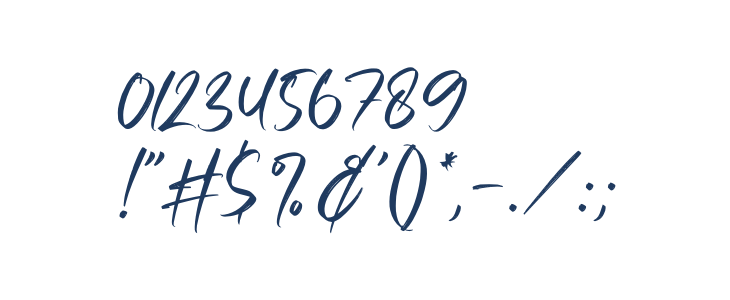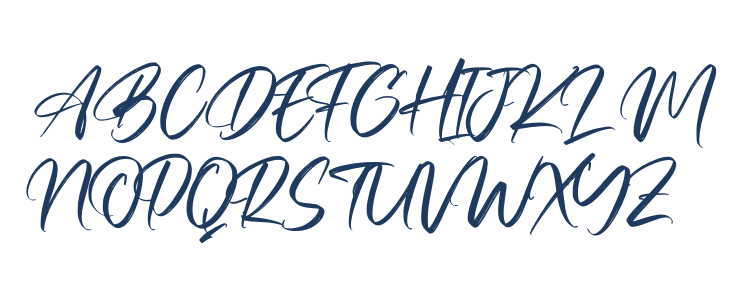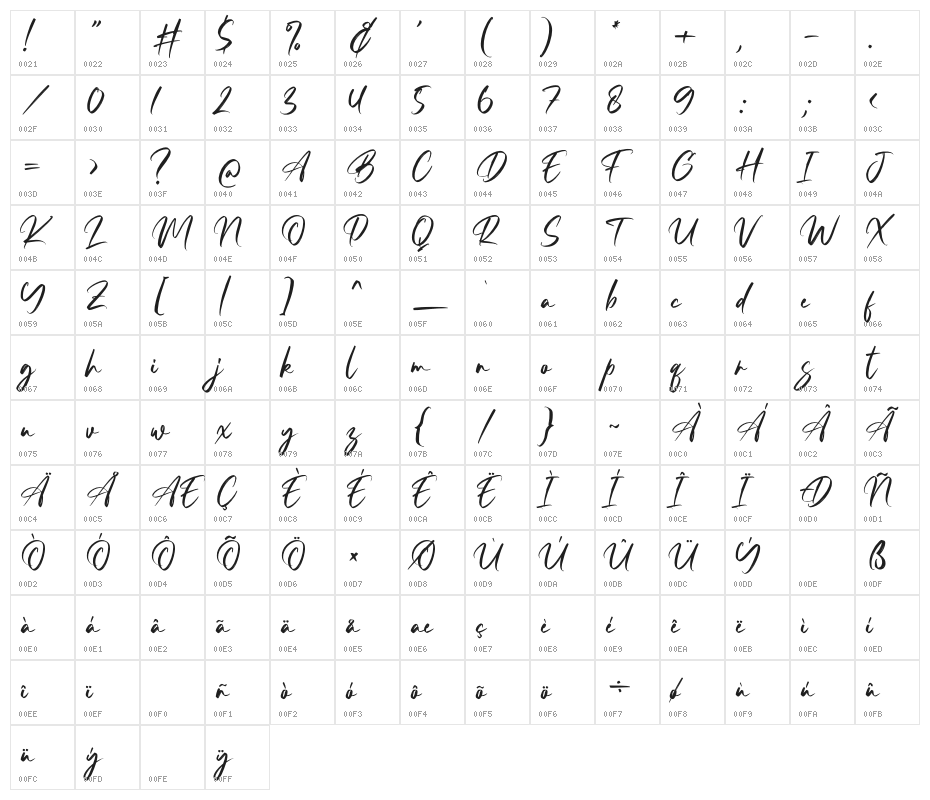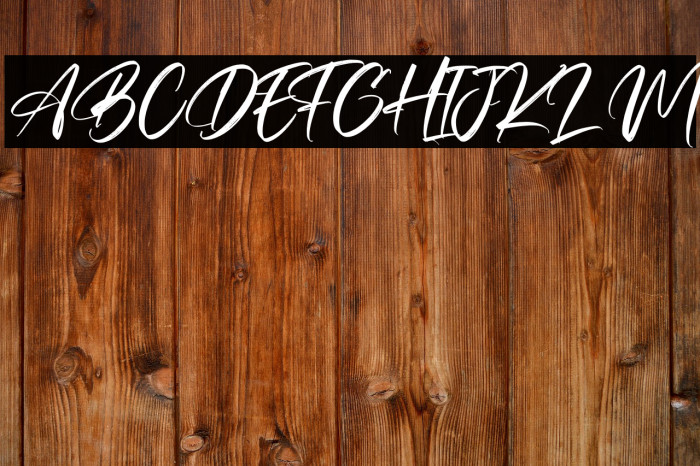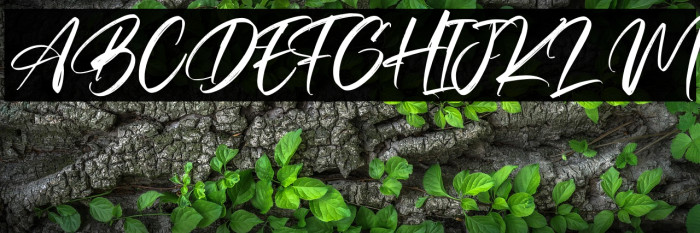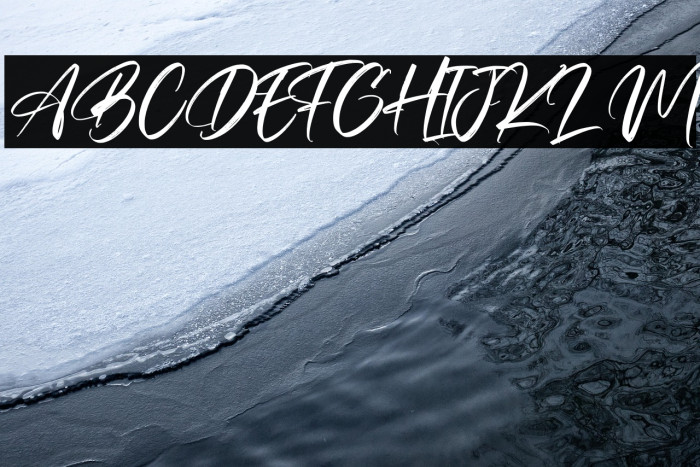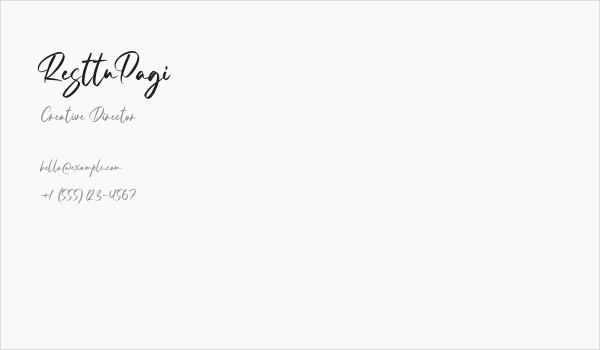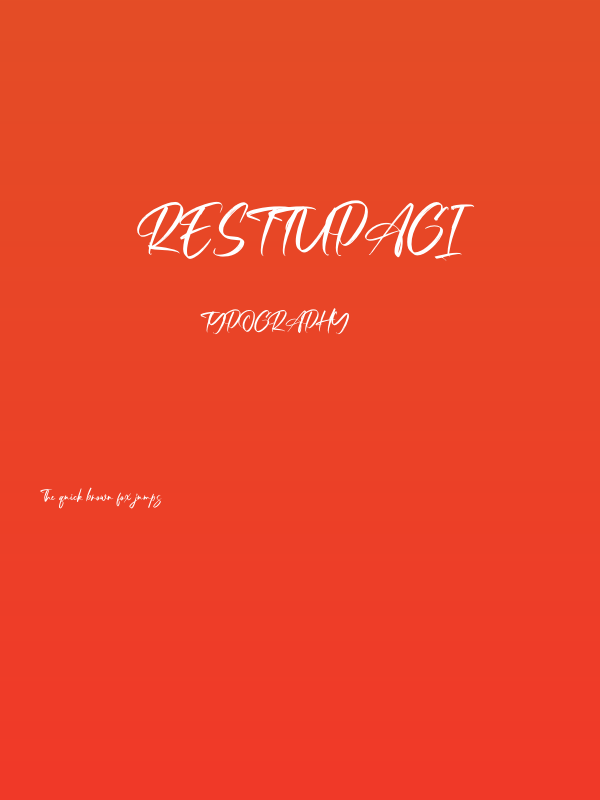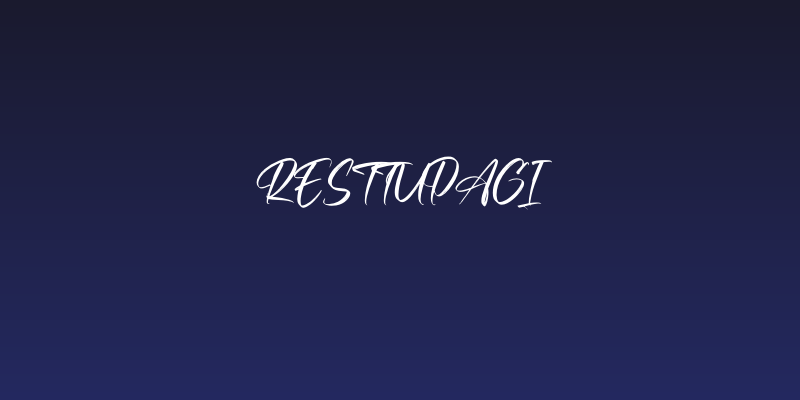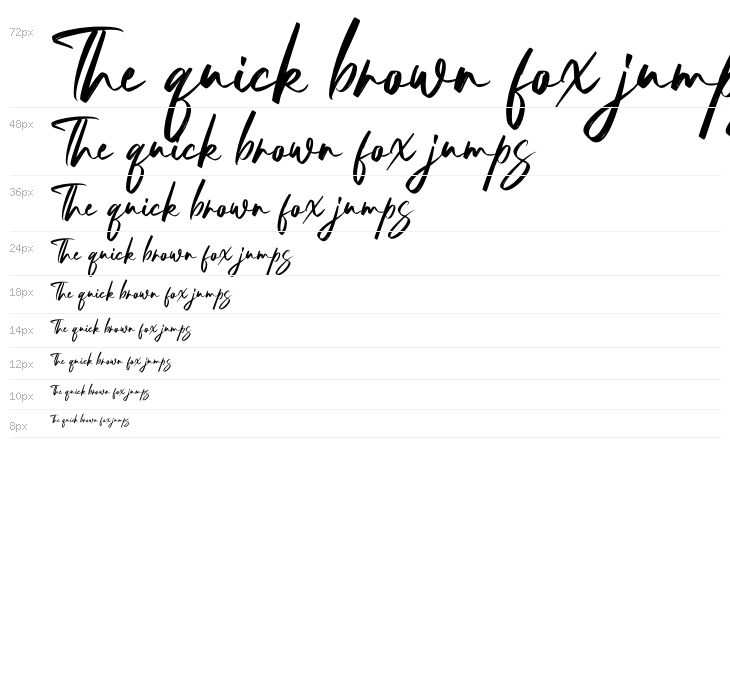
ResttuPagi Font
ResttuPagi Description
A dynamic, expressive handwritten script with fluid, brush-like strokes and varying thickness, giving it an energetic and artistic appearance. The characters are loosely connected, with high contrast and a casual, modern flair.
| Overall Style | Decorative, Modern, Artistic |
| Use Case | Logos, Headlines, Invitations, Posters |
| Proposed Projects | Greeting cards, invitations, branding, posters, social media graphics, artistic logos. |